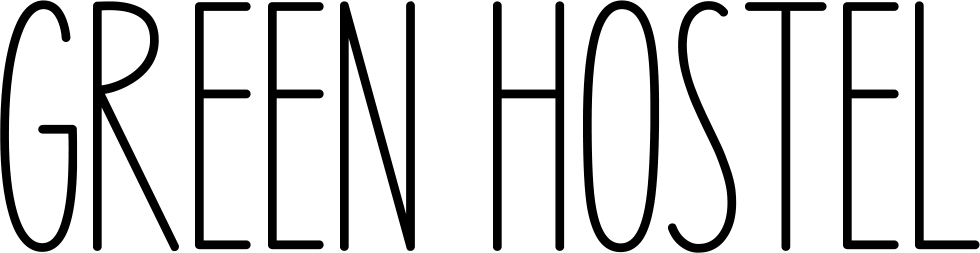
Green Hostel Font
Green Hostel is a tall font that does not support lowercase letters. Using an eye-catching font like Green Hostel can be a brilliant strategy to improve content efficiency and engage your audience. This font conveys a sense of modernity and comfort and is suitable for writing e-books or producing applications.